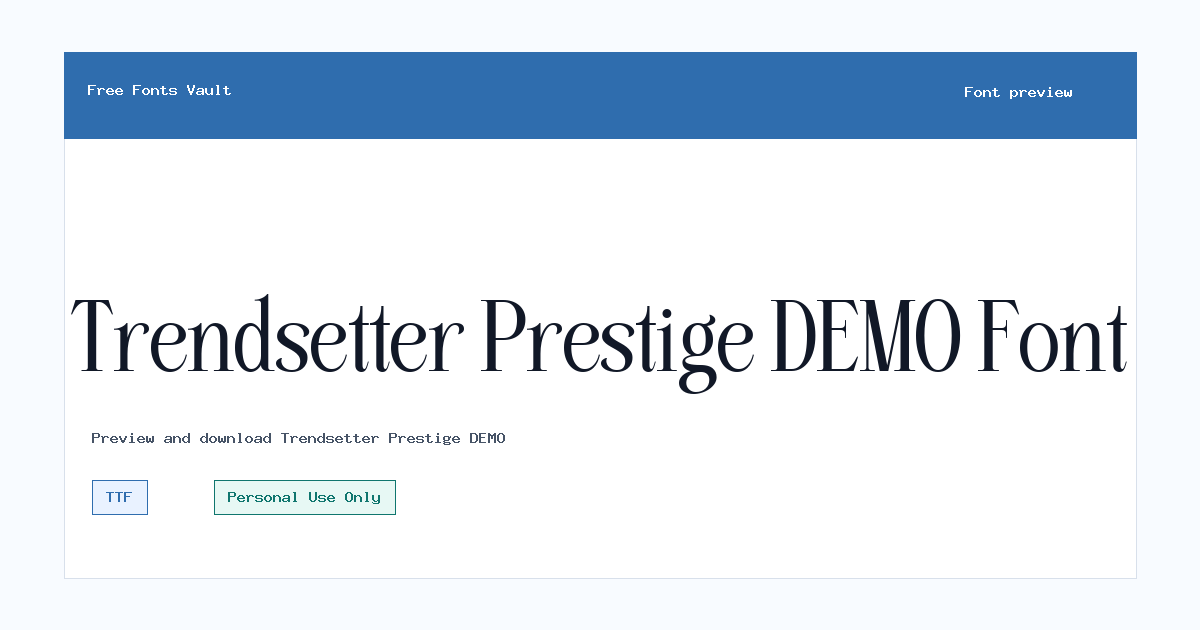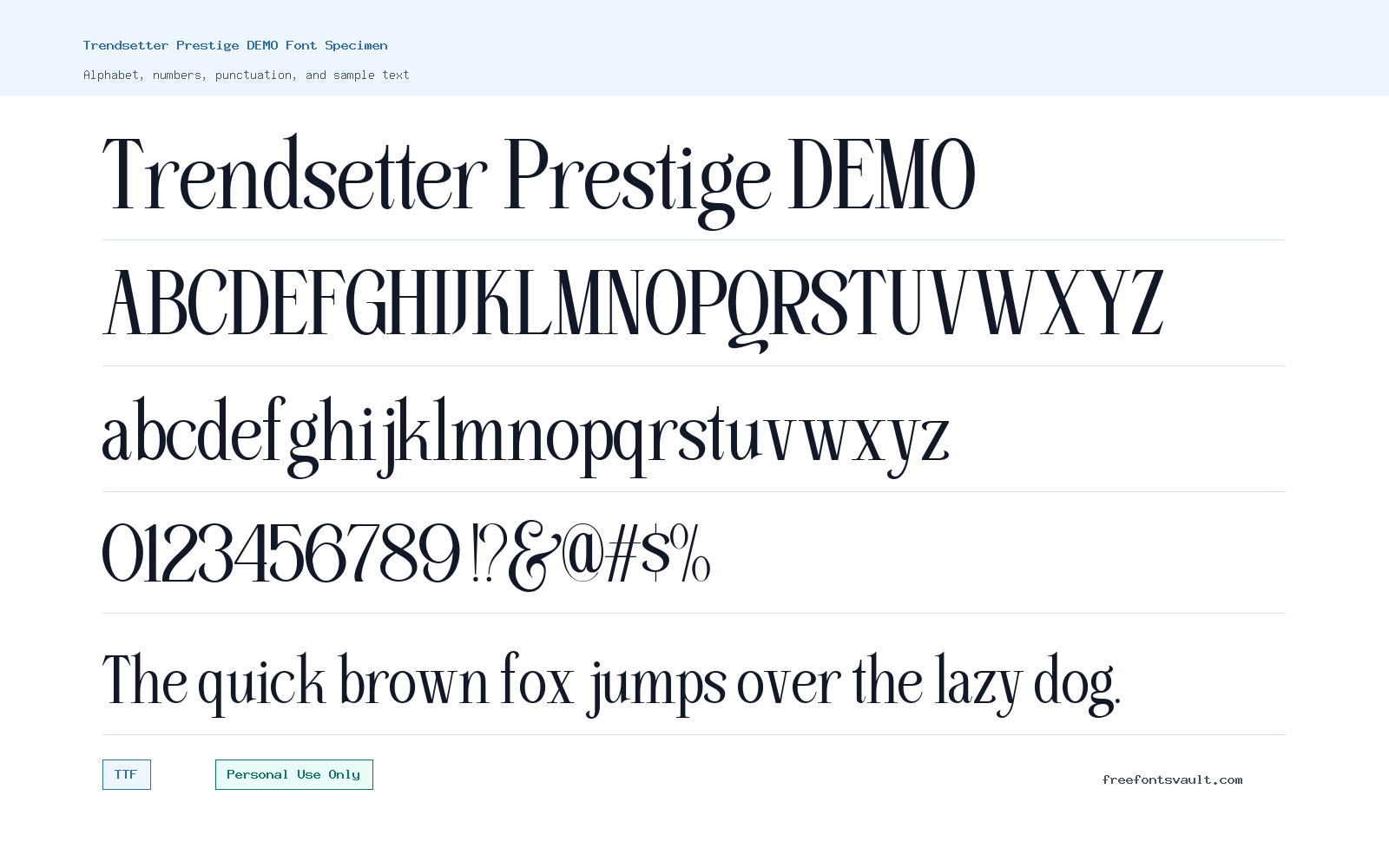
Trendsetter Prestige DEMO
Trendsetter Prestige DEMO Font
• Designer Sayins
• Foundry Sayins
Trendsetter Prestige DEMO is a personal-use font by Sayins with a polished display feel suited to short, stylish text. It is best tested in the preview tool with names, headings, logos, and poster lines before downloading.
About Trendsetter Prestige DEMO
Trendsetter Prestige DEMO is a regular TTF font designed for display use rather than long reading. The name suggests a refined, fashion-forward direction, so it works best when you use it for short words or compact phrases where the letter shapes can stand out. Try it with boutique-style names, beauty branding ideas, social graphics, event titles, quote cards, and packaging mockups. Because only a regular style is listed, the safest way to build hierarchy is through size, spacing, color, and layout instead of relying on extra weights.
For logo work, test the exact brand name before committing. Display fonts can look great in one word and less balanced in another, depending on letter combinations, spacing, and repeated characters. Preview uppercase and lowercase versions if available in the font, then check how the design holds up at small sizes. For posters and web mockups, use Trendsetter Prestige DEMO for the main title or accent text, then pair it with a clean sans serif or readable serif for body copy. Keep the supporting font simple so the display style stays clear and the layout does not feel crowded.
• Display-focused style suited to short headings, brand mockups, posters, and social media graphics.
• Single listed weight, making it easy to preview but best supported by careful size and spacing choices.
• Works best as a visual accent rather than as paragraph text.
• Logo drafts and brand-name mockups
• Fashion, beauty, boutique, and lifestyle-style design tests
• Poster titles and event graphics
• Social media headers, quote cards, and promotional mockups
• Packaging concepts and product label experiments
• Website hero headings and landing page mockups
• Invitations, lookbooks, and editorial-style title treatments
The listed designer and foundry name is Sayins.
Who designed Trendsetter Prestige DEMO?
The designer and foundry are listed as Sayins.
What is this font best used for?
It is best for short display text such as logos, poster titles, social graphics, packaging mockups, invitations, and stylish web headings.
Can I use Trendsetter Prestige DEMO for body text?
It is better used for short titles and accent text. For paragraphs, pair it with a simpler, more readable font.
How should I pair this font?
Use a clean sans serif for modern layouts or a quiet serif for a more editorial look. Avoid pairing it with another highly decorative font, because the design can become hard to read.